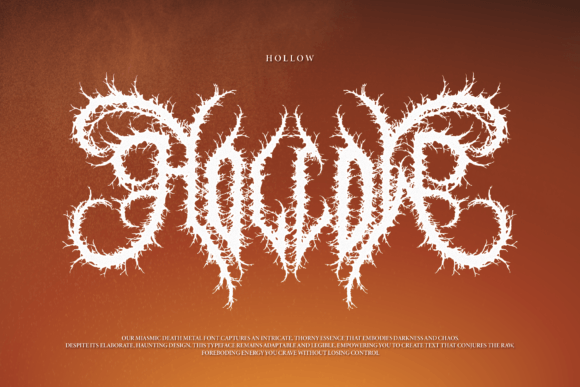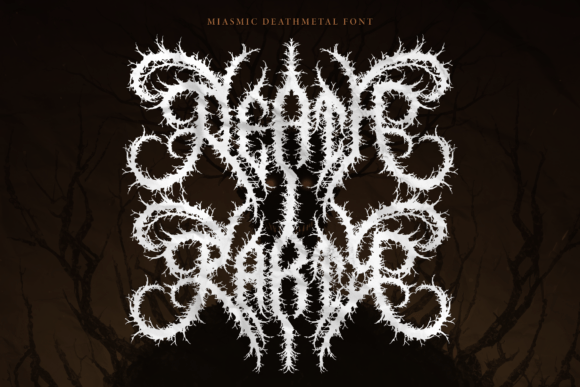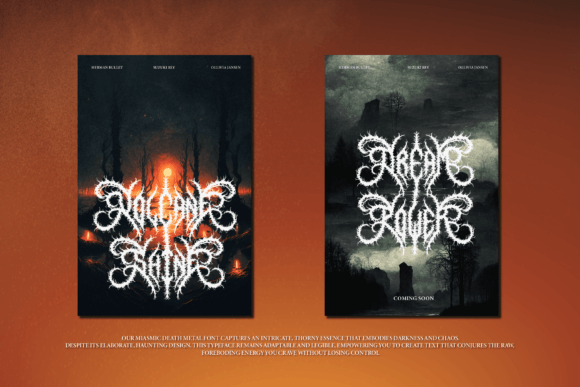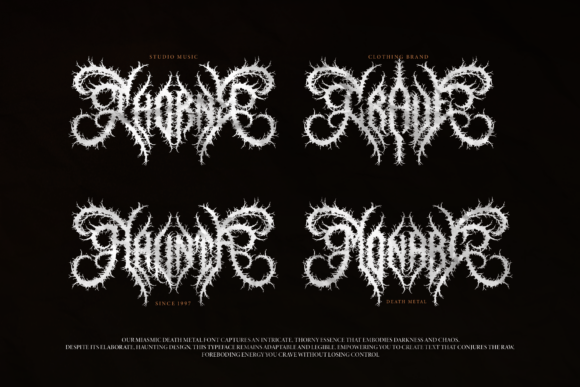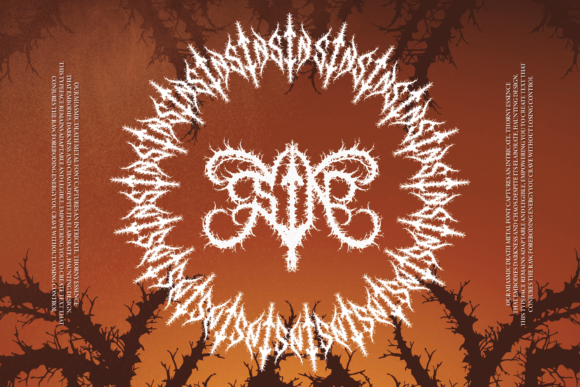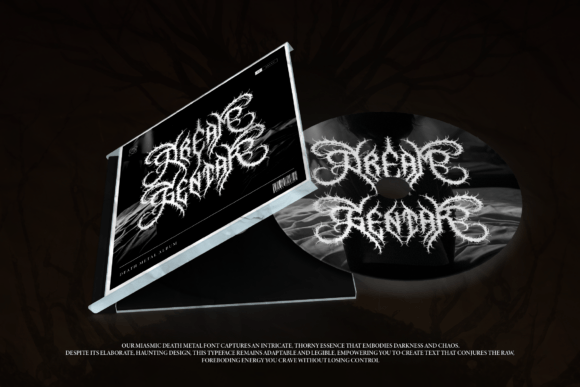
Introduction to Miasmic Font
The Miasmic font is a bold, intense Death Metal font with rough, jagged letters that look dark and gritty.
Each letter has sharp edges and a twisted look, giving it a raw, powerful feel Perfect for horror themes, metal band logos, or anything that needs a strong, eerie style.